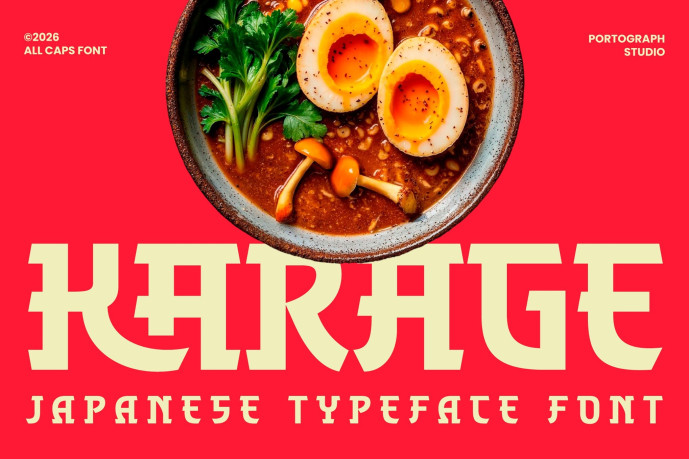
Karage – Japanese Display Font
Karage – Japanese Display Font is a bold Japanese inspired display typeface with strong cultural character and playful proportions. Designed to capture the warmth and energy of ramen shops, street food branding, and modern Asian-themed visuals, this font brings authenticity and impact to any design.
With its distinctive letterforms, Karage works perfectly for food branding. The font includes uppercase characters, numerals, symbols, and multilingual support, making it suitable for both digital and print use. Karage is ideal for designers who want to create eye-catching headlines and culturally inspired visuals with a bold and friendly personality.